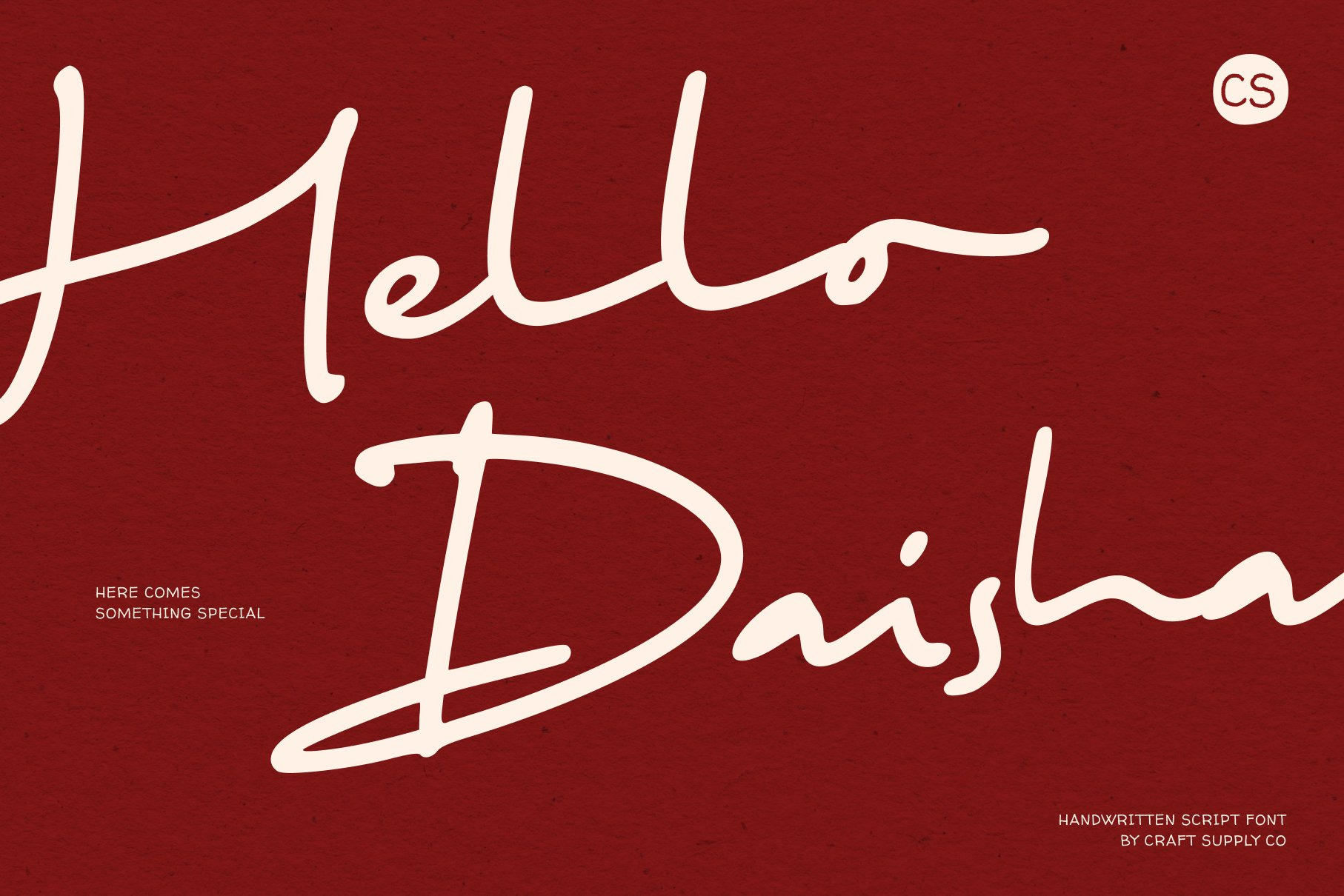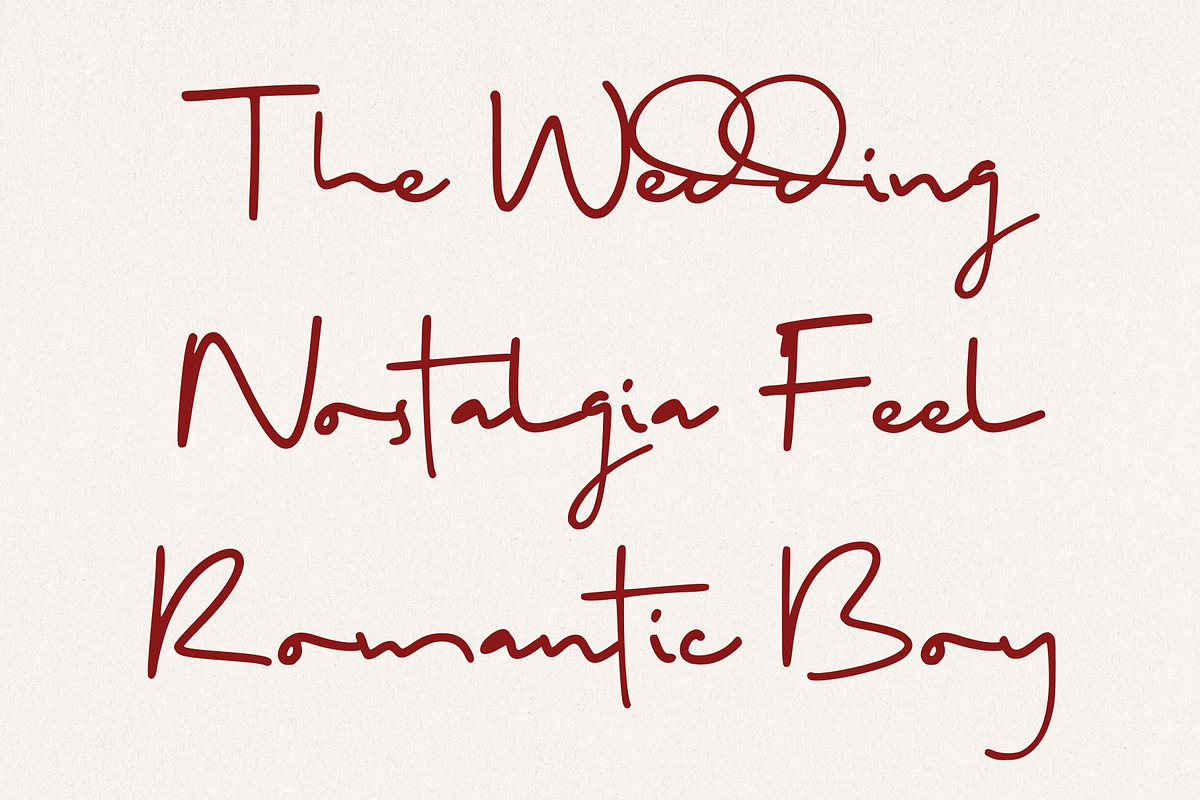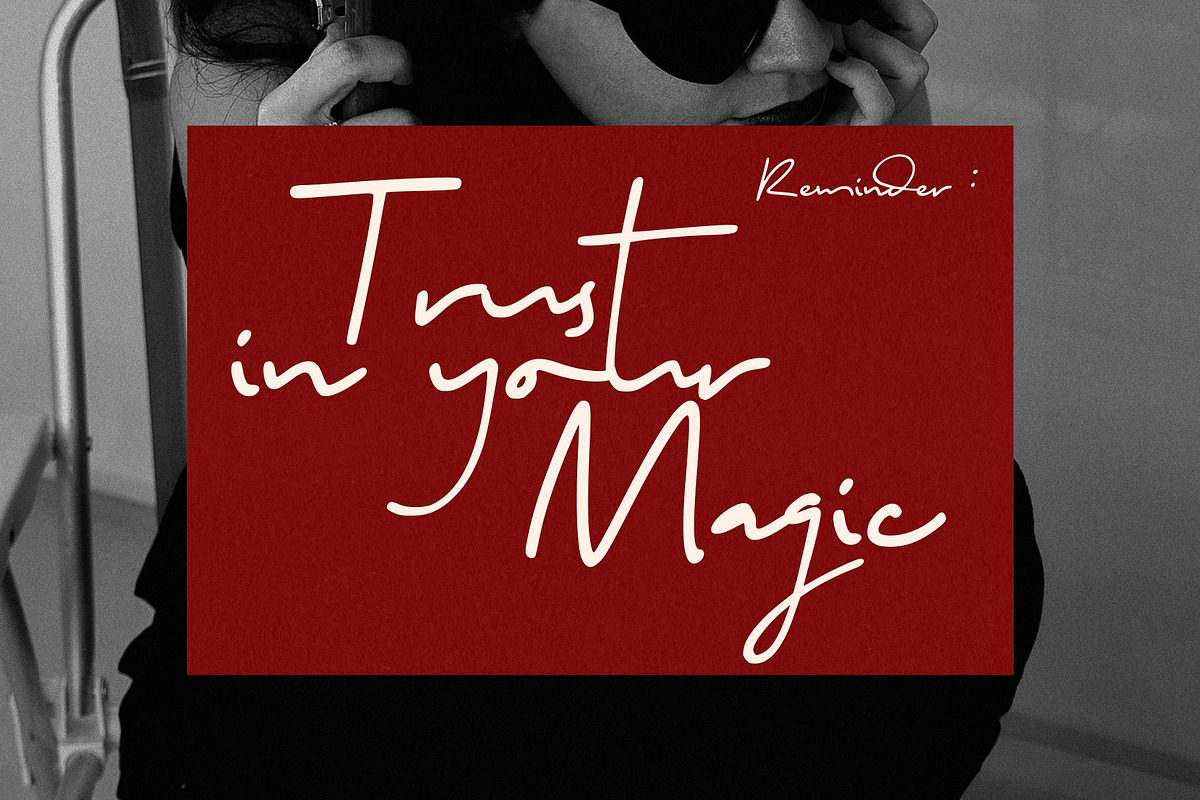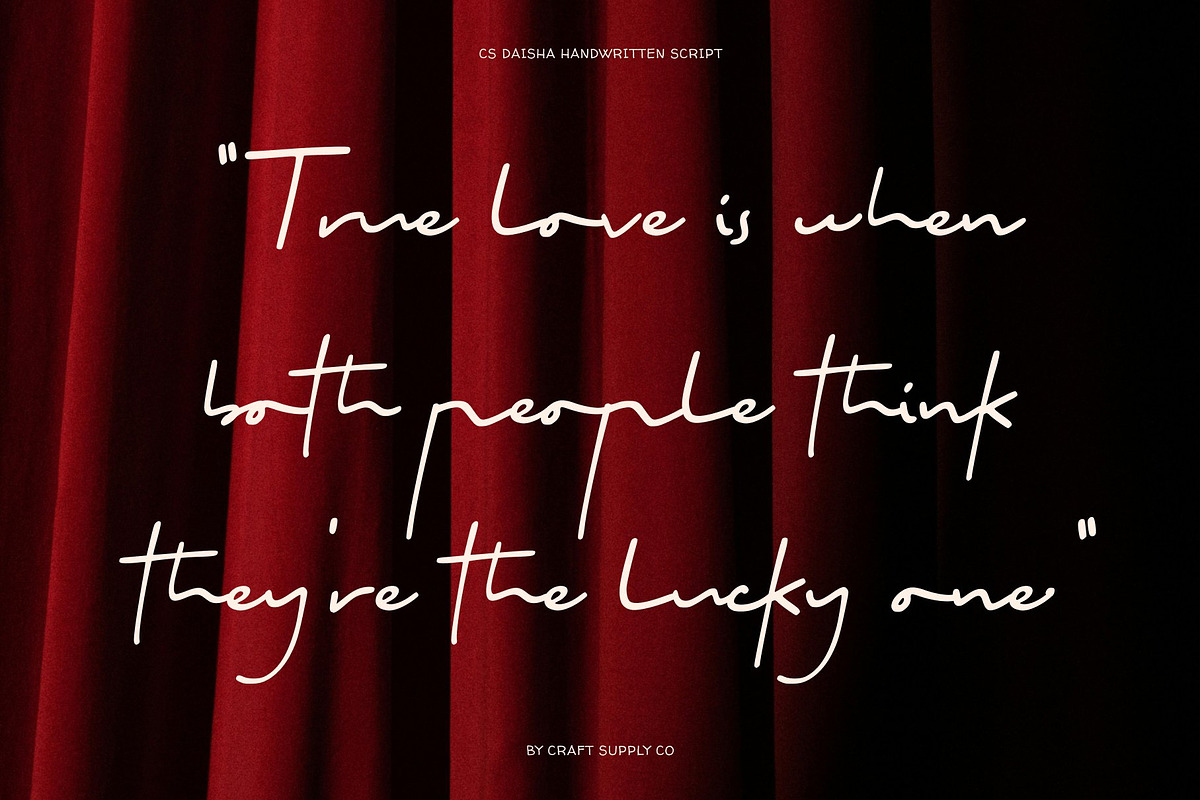
CS Daisha – Handwritten Script Font
CS Daisha – Soft Handwritten Expression with Natural Warmth
Handwritten Script Font with Organic Character This is a soft and expressive handwritten script font designed to capture the charm and sincerity of natural pen strokes. Inspired by real handwriting, this font delivers a warm and personal feel that instantly connects with the viewer. Its gentle flow and organic movement make ideal for designs that value authenticity, emotion, and a human touch.
Natural Pen Strokes with Expressive Detail The beauty of lies in its natural stroke variations and fluid connections. Each letter is crafted to feel spontaneous yet balanced, creating a handwritten look that feels relaxed and genuine. These expressive details add personality without overwhelming the composition, allowing the font to remain readable while still delivering character and warmth.
Warm Style for Personal and Casual Designs This font brings a friendly and inviting tone to any project. Its soft script style works beautifully for personal branding and expressive typography, making messages feel more intimate and approachable. Whether used in short quotes or longer phrases, the font maintains clarity while enhancing emotional impact through its handwritten charm.
Perfect for Branding, Quotes, and Invitations Designed for versatile creative use, this font is perfect for personal branding, inspirational quotes, casual invitations, packaging, and social media graphics. Its authentic handwritten style makes it especially suitable for lifestyle brands, small businesses, and creative projects that aim to feel heartfelt and relatable.
- CS Daisha Regular
- CS Daisha Italic
- CS Daisha Reverse Italic